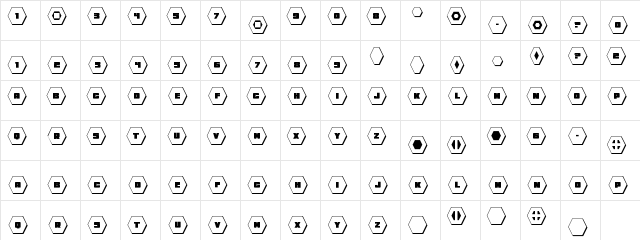
HeXkEy Solid 3D Regular
Design Context for HeXkEy Solid 3D Typeface
HeXkEy Solid 3D is a composed and adaptable typeface that performs quietly and consistently across a wide range of design contexts.